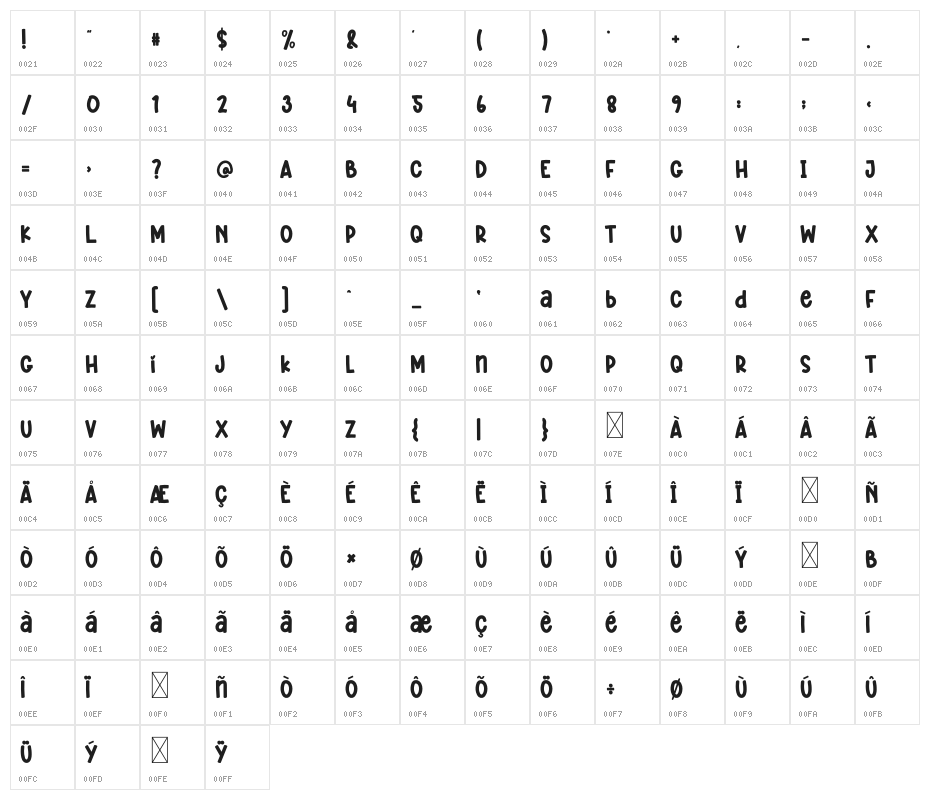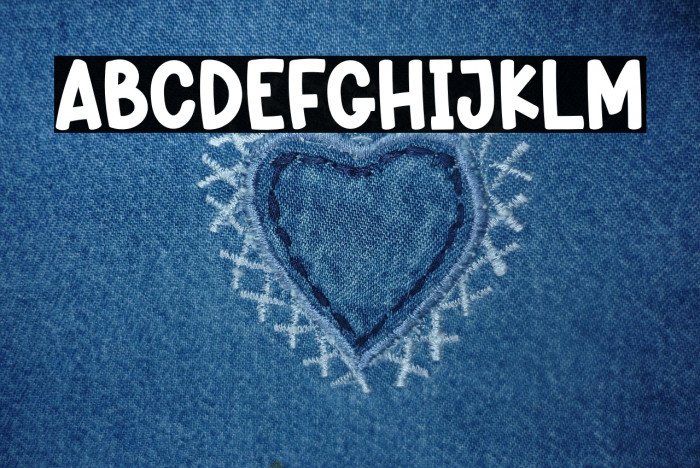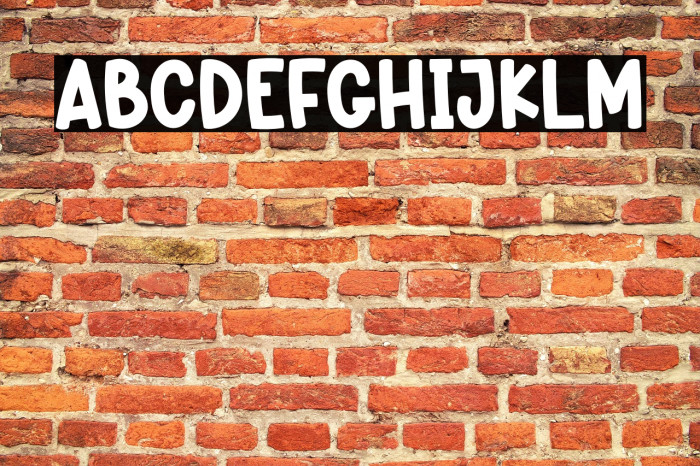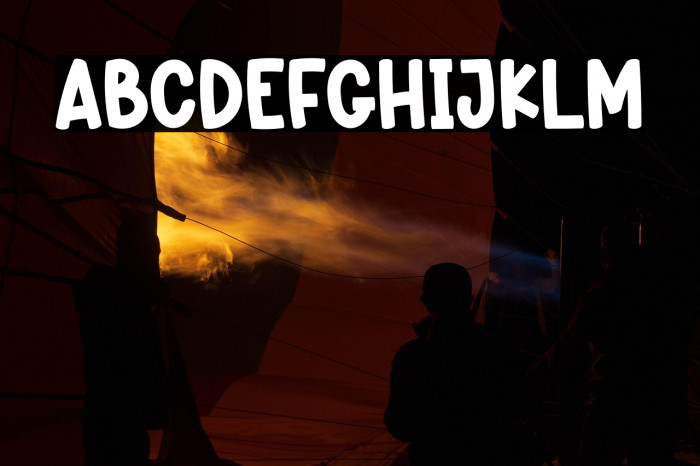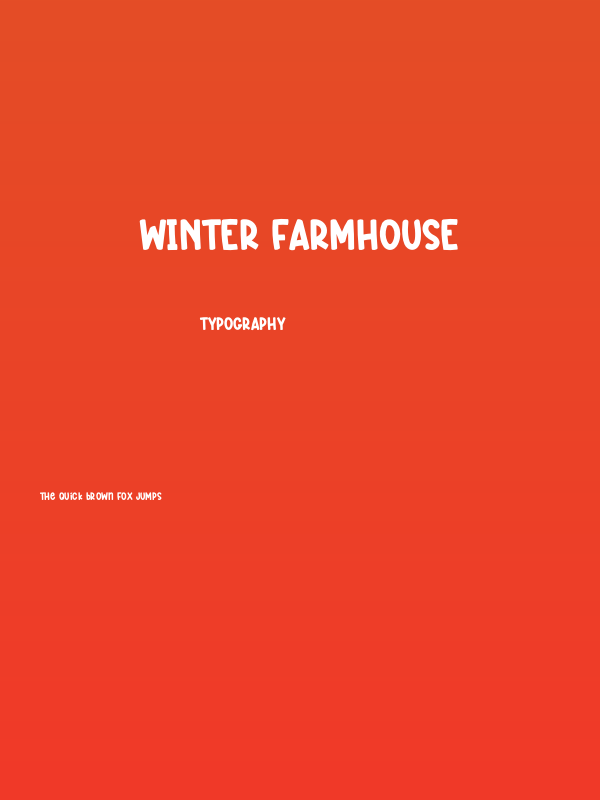
Winter Farmhouse Font
Winter Farmhouse Description
This font features a playful and bold style with rounded edges, giving it a friendly and approachable appearance. The characters are slightly irregular, adding a hand-drawn feel that enhances its charm. The uppercase and lowercase letters maintain a consistent weight, while the numerals and special characters are designed to match the overall aesthetic. This font is versatile, suitable for both digital and print media, and can add a whimsical touch to any project.
| Overall Style | Playful, Hand-drawn |
| Proposed Projects | Ideal for children's books, playful branding, greeting cards, and casual invitations. |